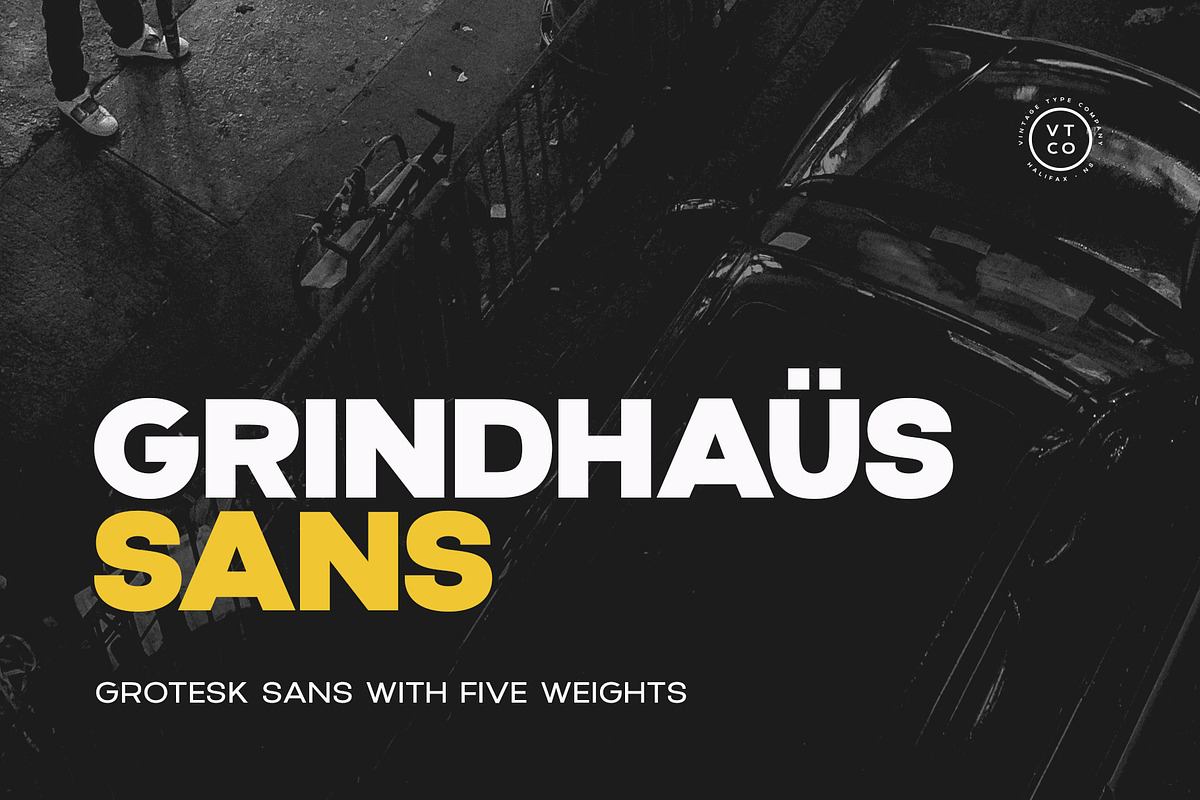
Grindhaus Sans Font Free Download is a bold, modern sans-serif typeface designed for projects that require a strong, contemporary look. With its clean lines, geometric forms, and solid structure, this font is perfect for branding, logos, posters, websites, and other design projects that need a powerful visual impact.
Whether you're creating for a tech brand, building a professional website, or crafting creative marketing materials, Grindhaus Sans Font Free Download adds clarity and strength to your typography. Its versatile design makes it ideal for both print and digital applications.